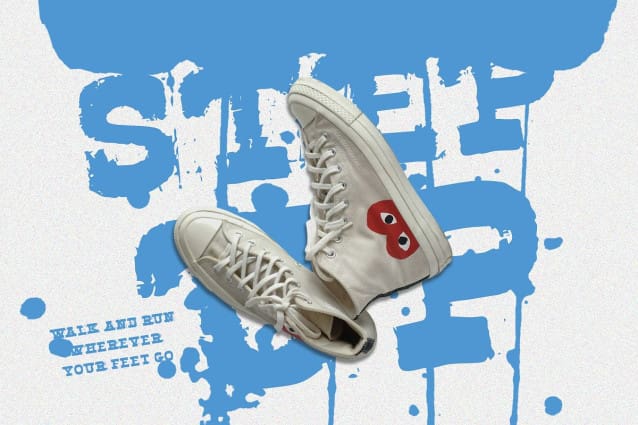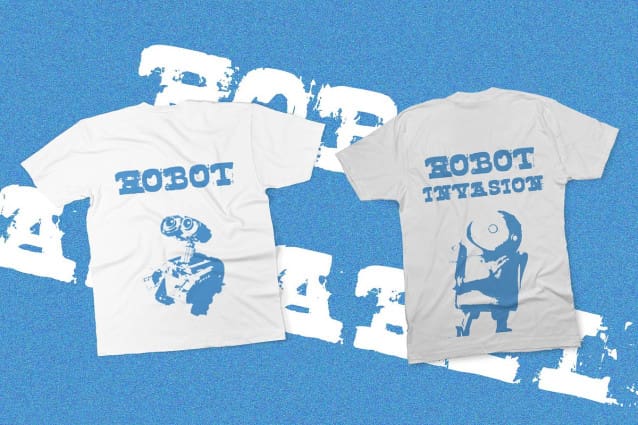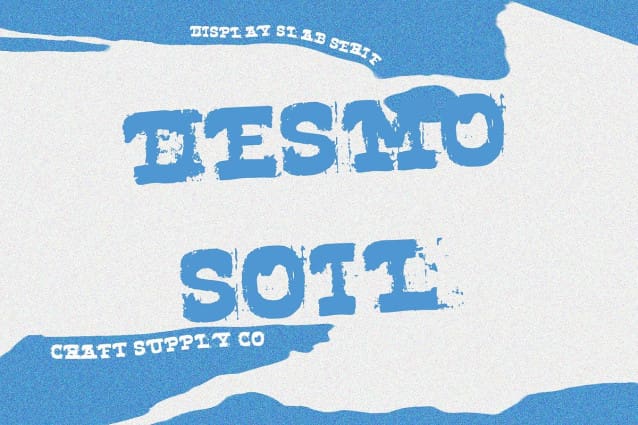
Desmo Soil Font
Desmo Soil Font: Bold and Gritty Display Typeface. Striking Reverse Contrast Desmo Soil commands attention with its reverse contrast serif design. The thick horizontal strokes and thin vertical lines create a visually striking display effect that grabs the viewer’s eye.
Unique Soil Effect What sets This font apart is its distinctive “soil” effect. Each letter appears weathered and gritty, evoking a sense of rawness and authenticity that adds character to any display project.
Perfect for Display Purposes Tailored for display use, This font excels in making a statement. Whether on posters, packaging, or digital platforms, its bold and gritty appearance ensures that your message stands out.
Versatility in Application Despite its rugged appearance, This font offers versatility in application. From urban-themed designs to vintage-inspired projects, its unique style adds a touch of edge and personality.
Raw and Striking This font is more than just a typeface; it’s a statement. With its bold reverse contrast serif design and distinctive soil effect, it injects grit and character into any display project, making it ideal for those seeking to stand out from the crowd.